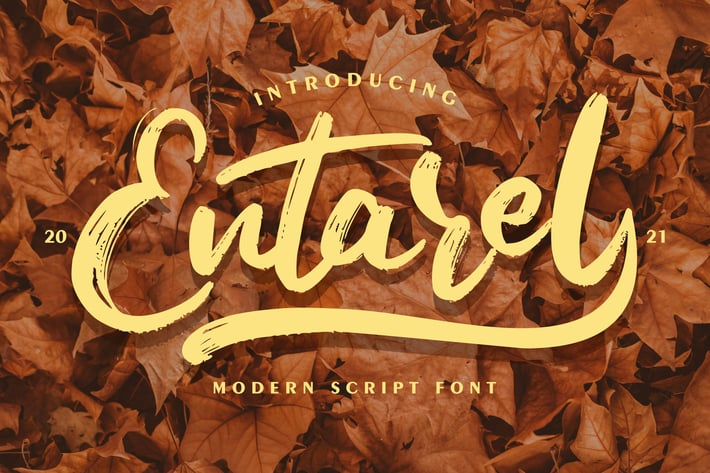
Entarel | Modern Script Font
Entarel | Modern Script Font with a calligraphy style, So beautiful on invitation like greeting cards, branding materials, business cards, quotes, posters, and more!